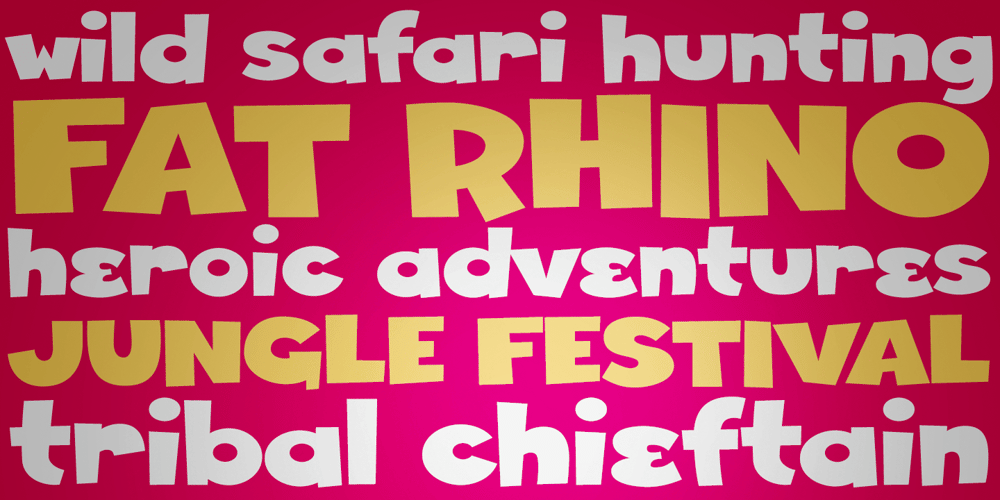
Fat Rhino
Fat Rhino font
Fat Rhino Font Family was designed by Phil Bracco and published by Pink Broccoli. Fat Rhino contains 1 styles and family package options. A heavyweight playful typeface with a children’s comic feel.